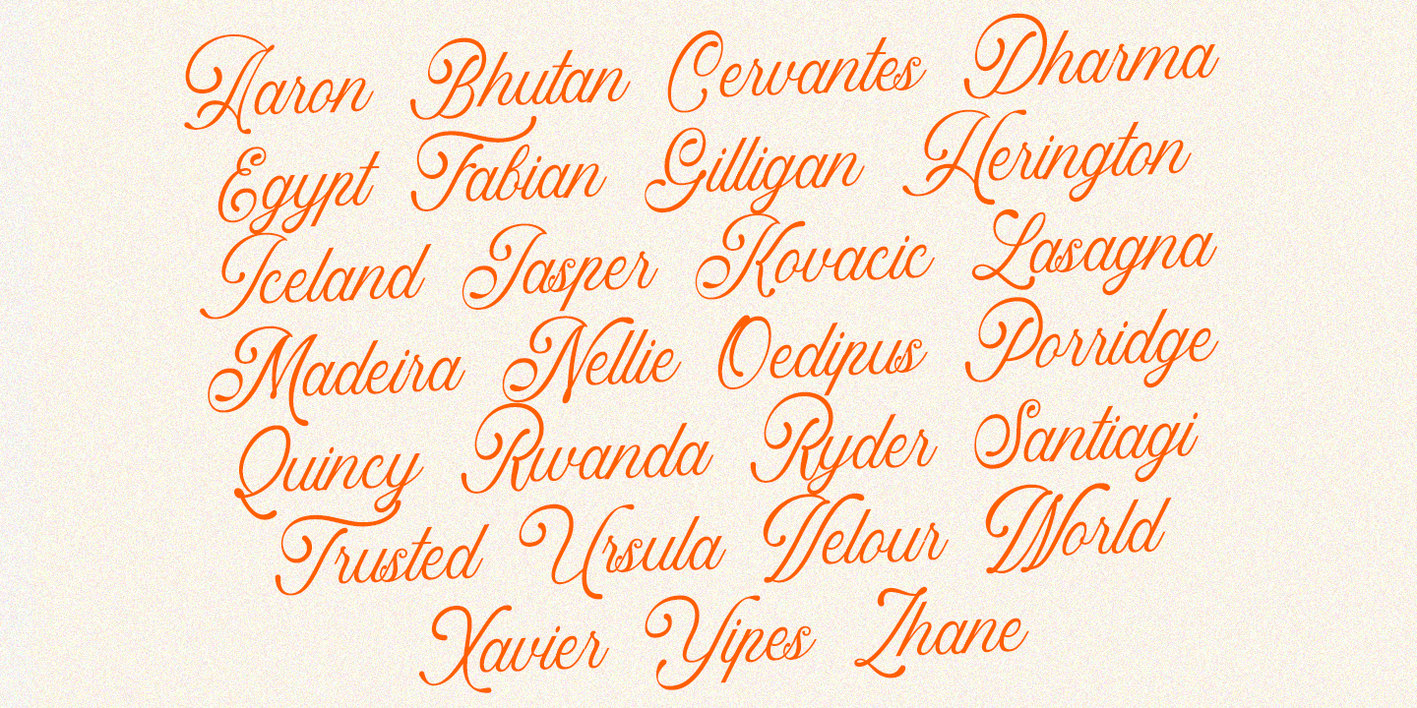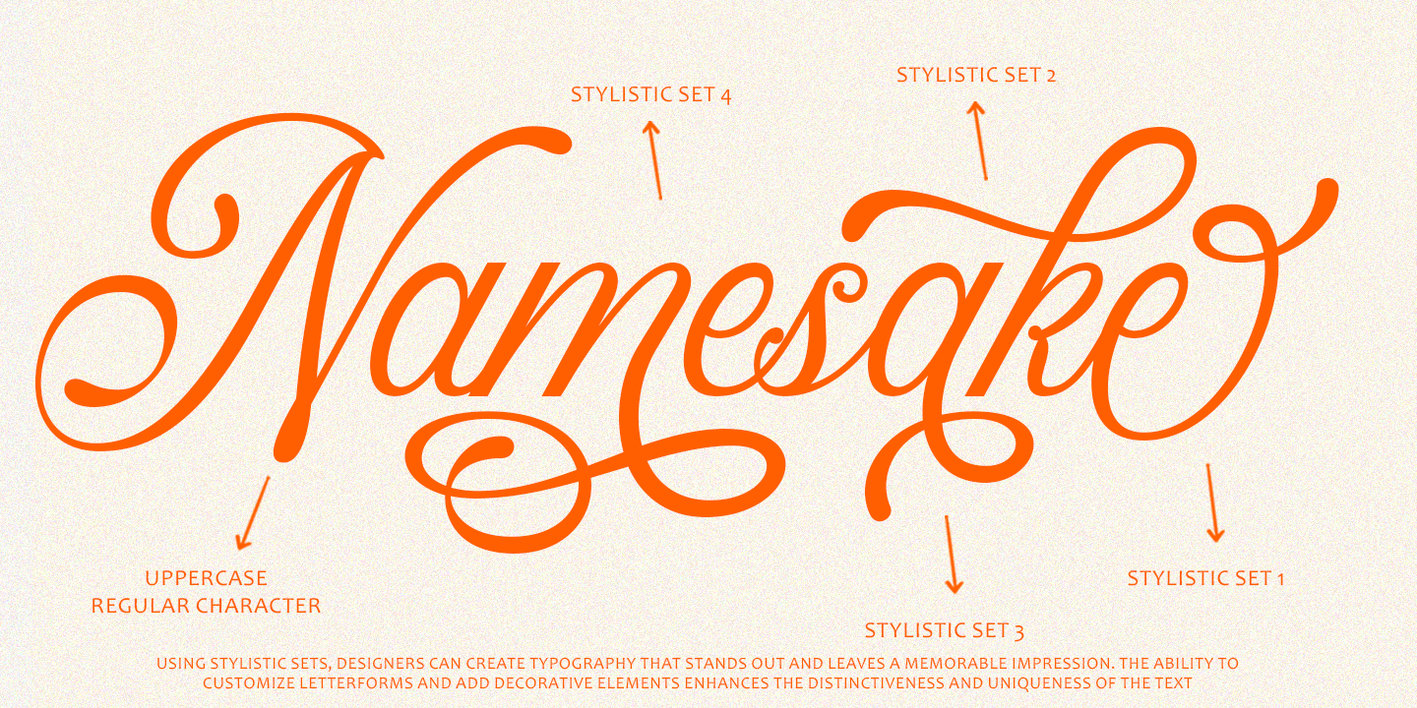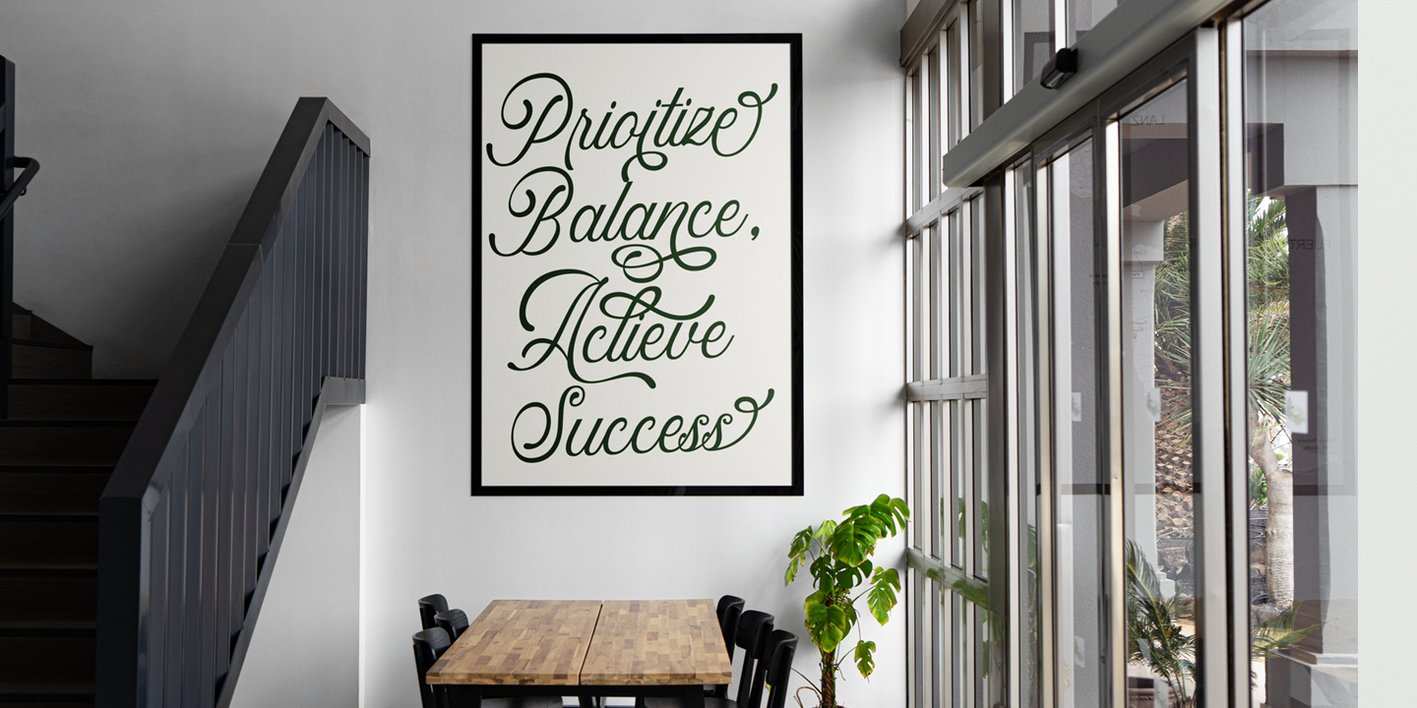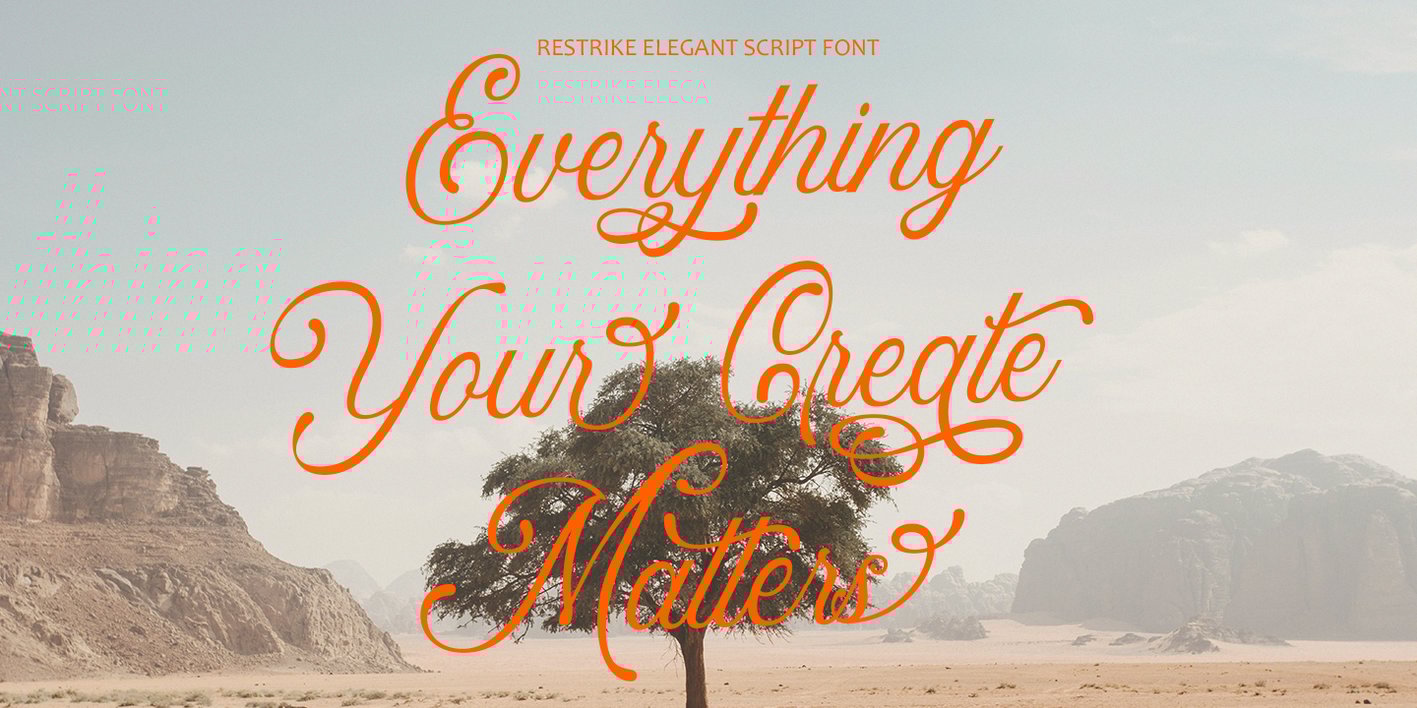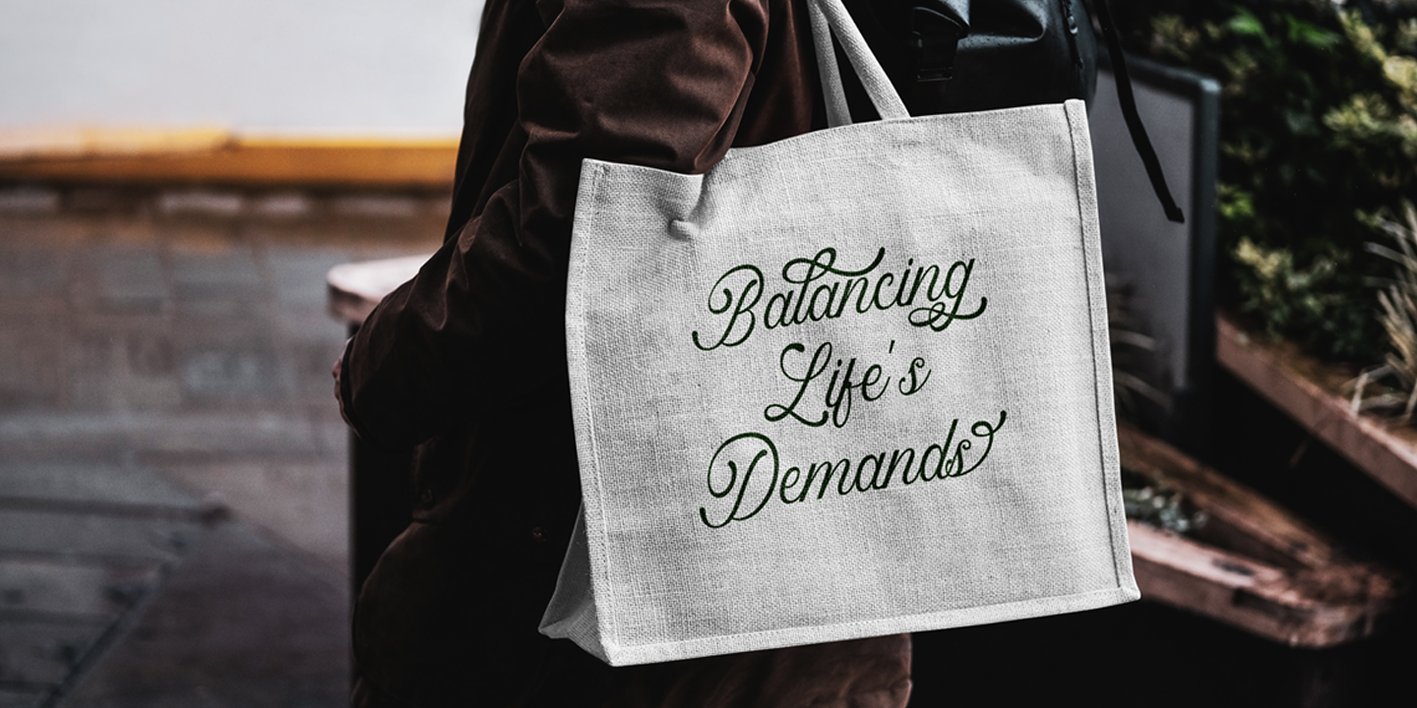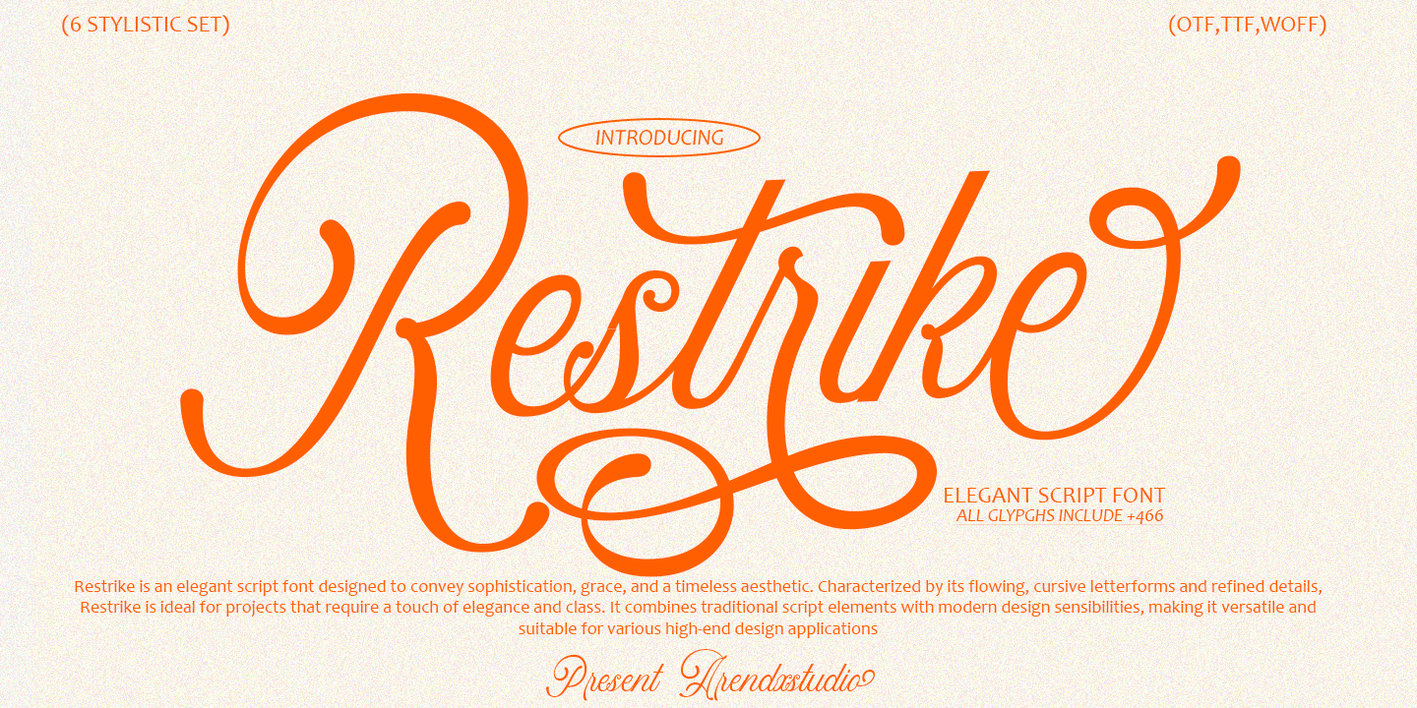
Restrike Font
"Restrike" is an elegant script font designed to convey sophistication, grace, and a timeless aesthetic. Characterized by its flowing, cursive letterforms and refined details, "Restrike" is ideal for projects that require a touch of elegance and class. It combines traditional script elements with modern design sensibilities, making it versatile and suitable for various high-end design applications.